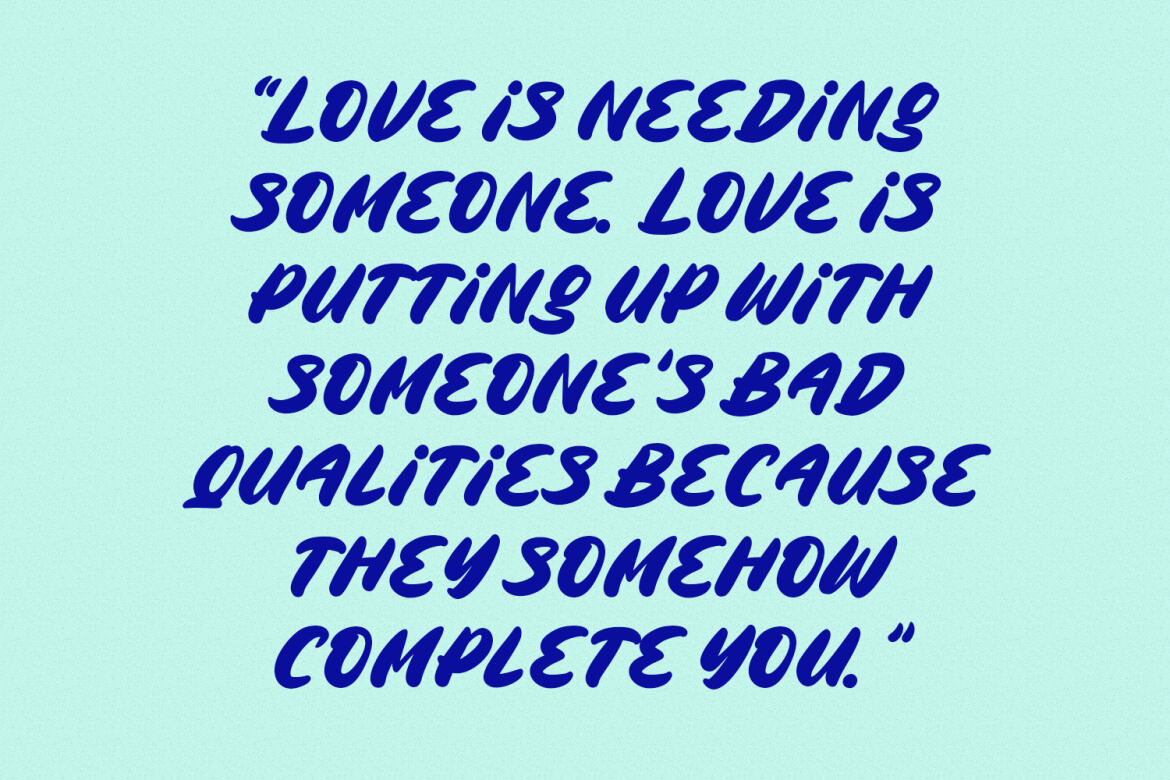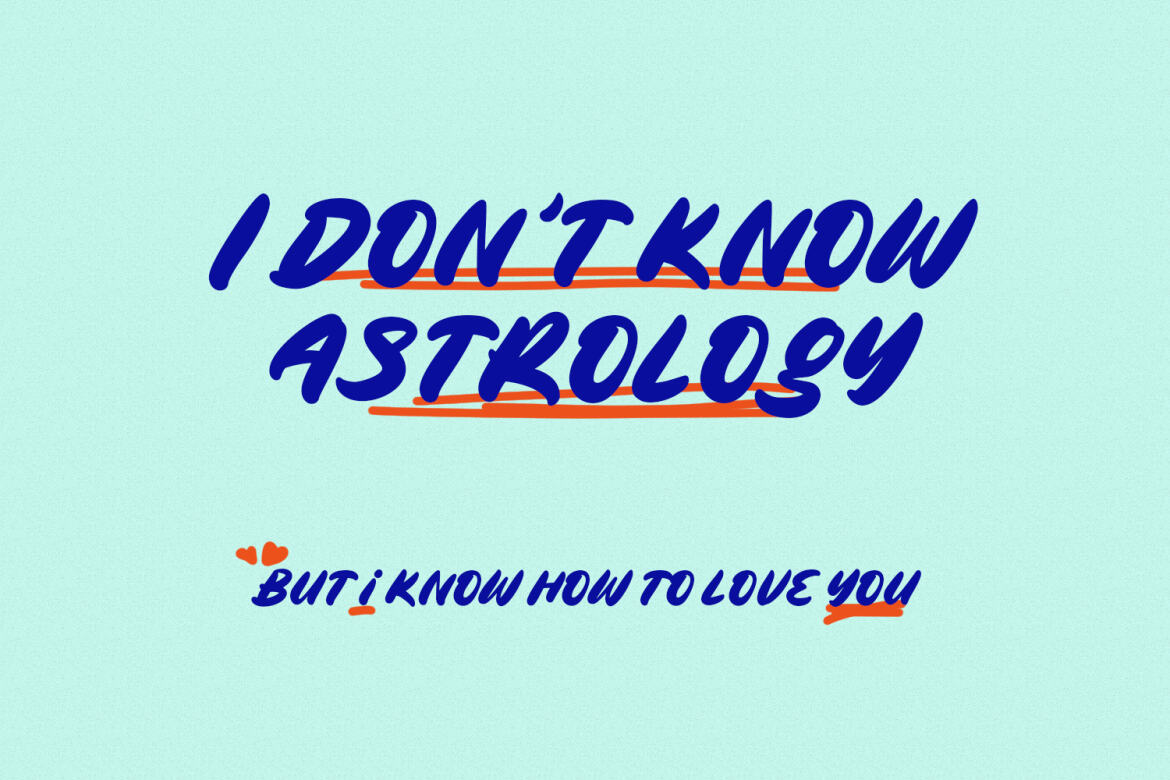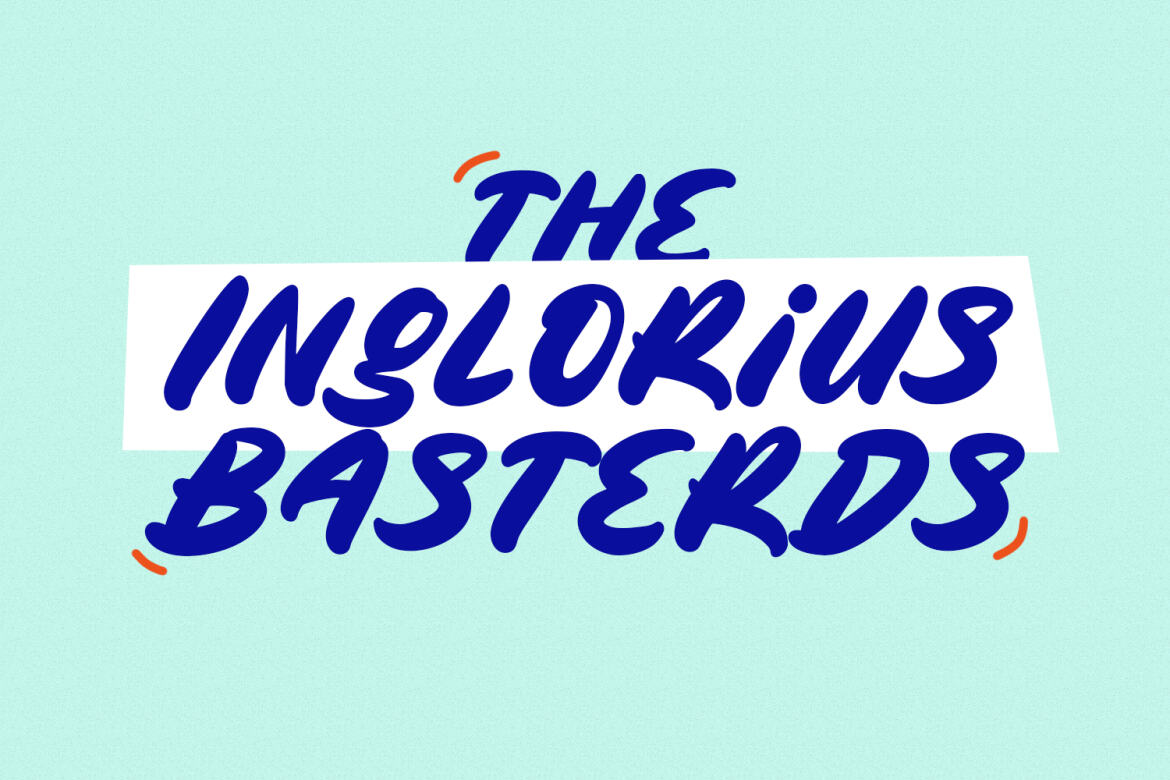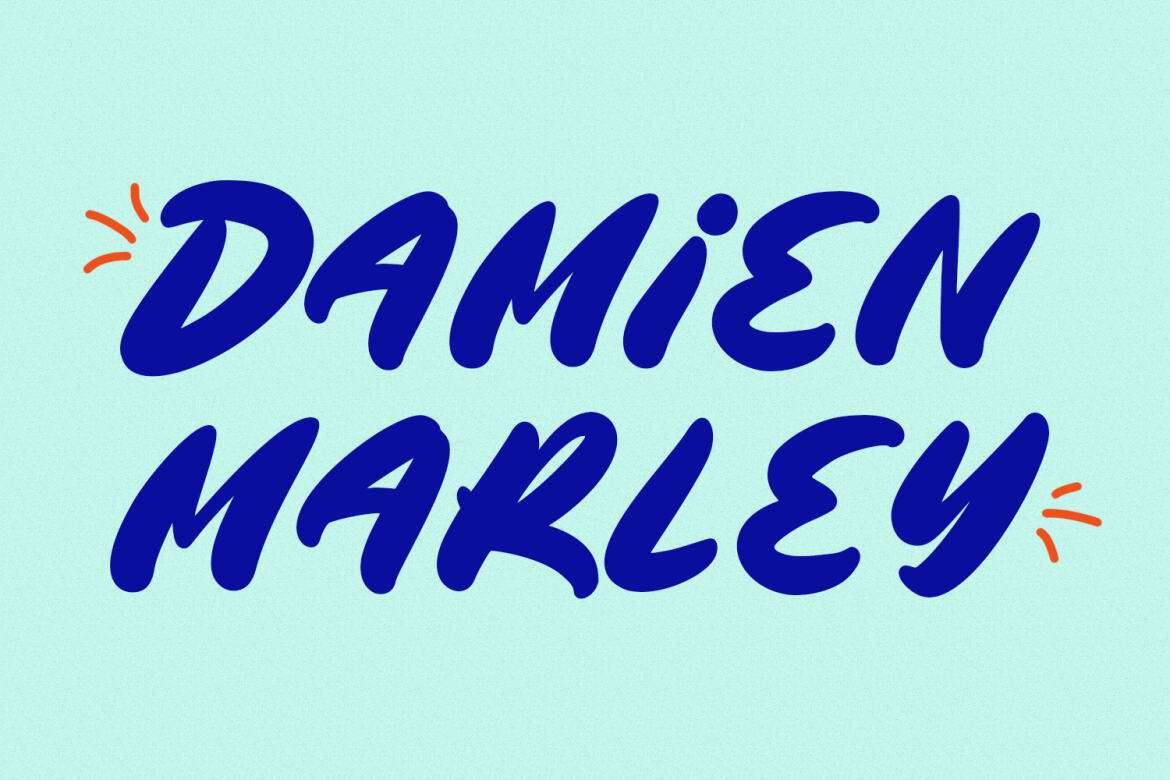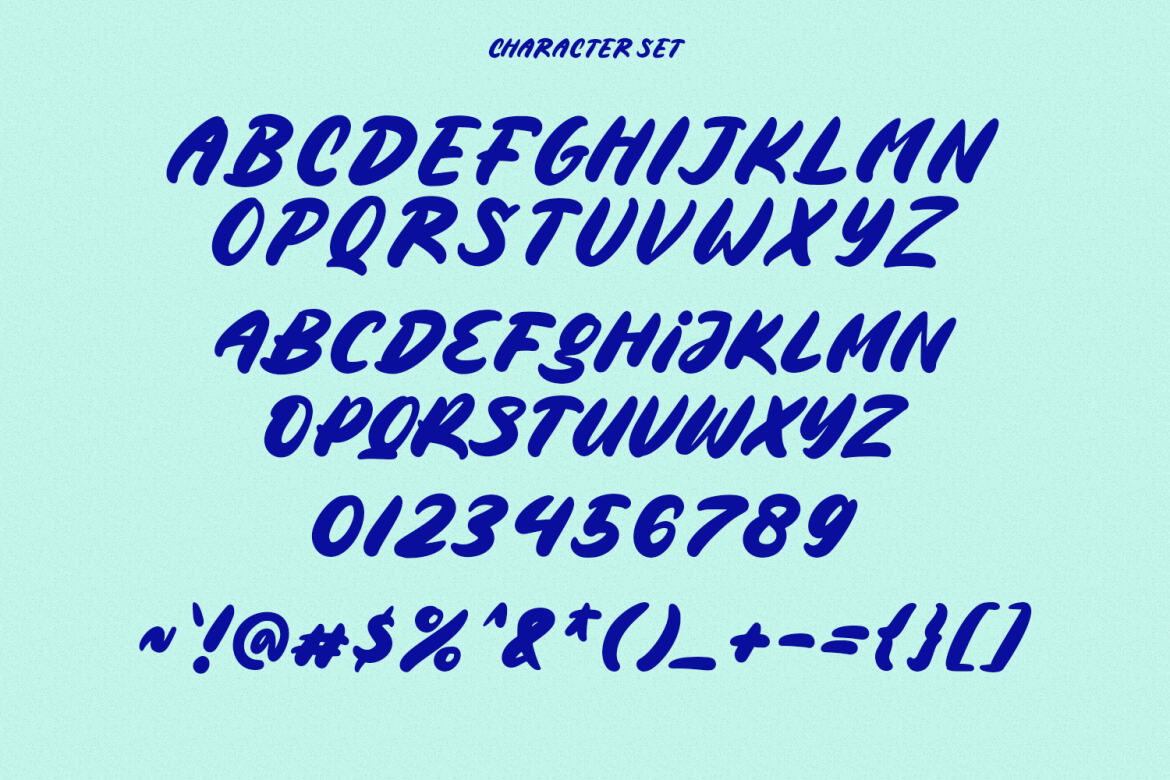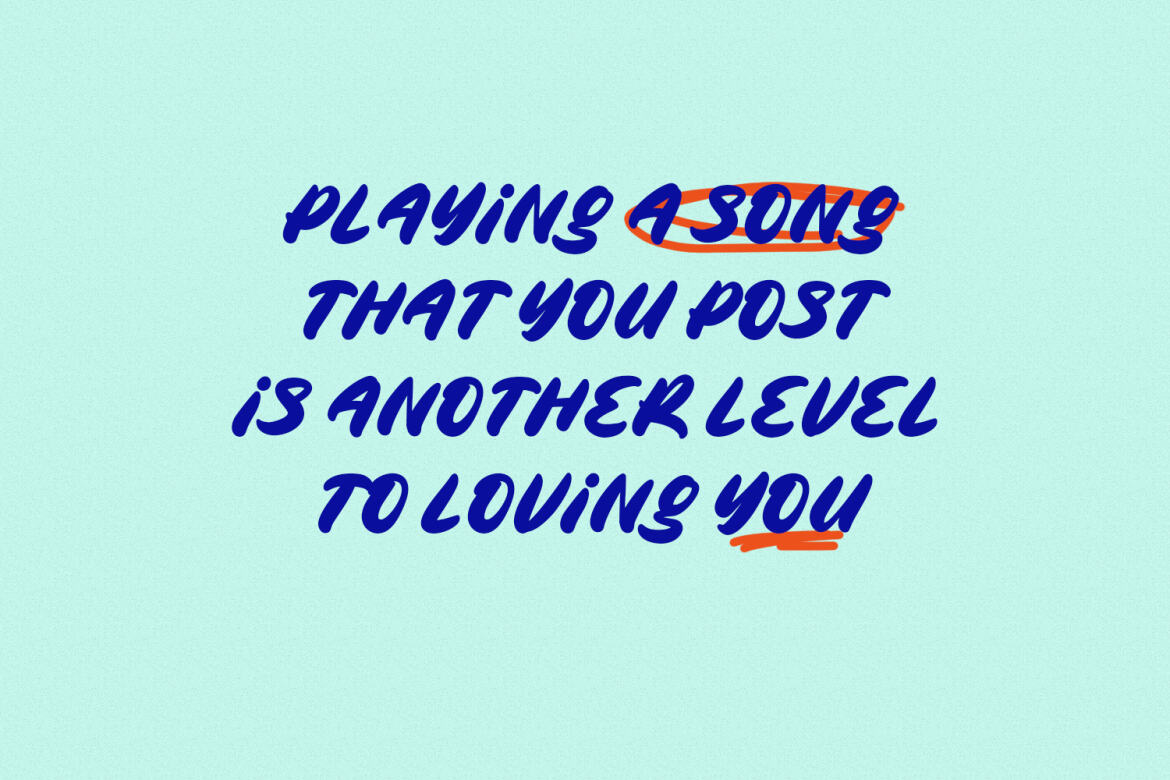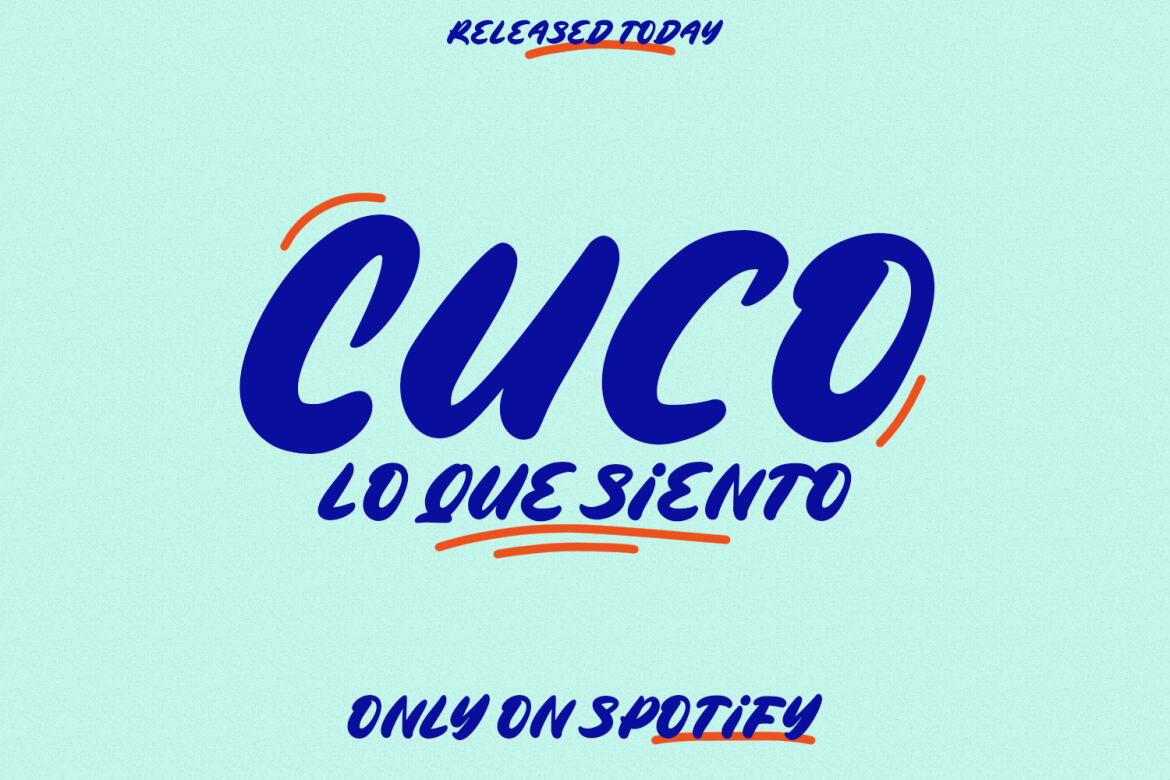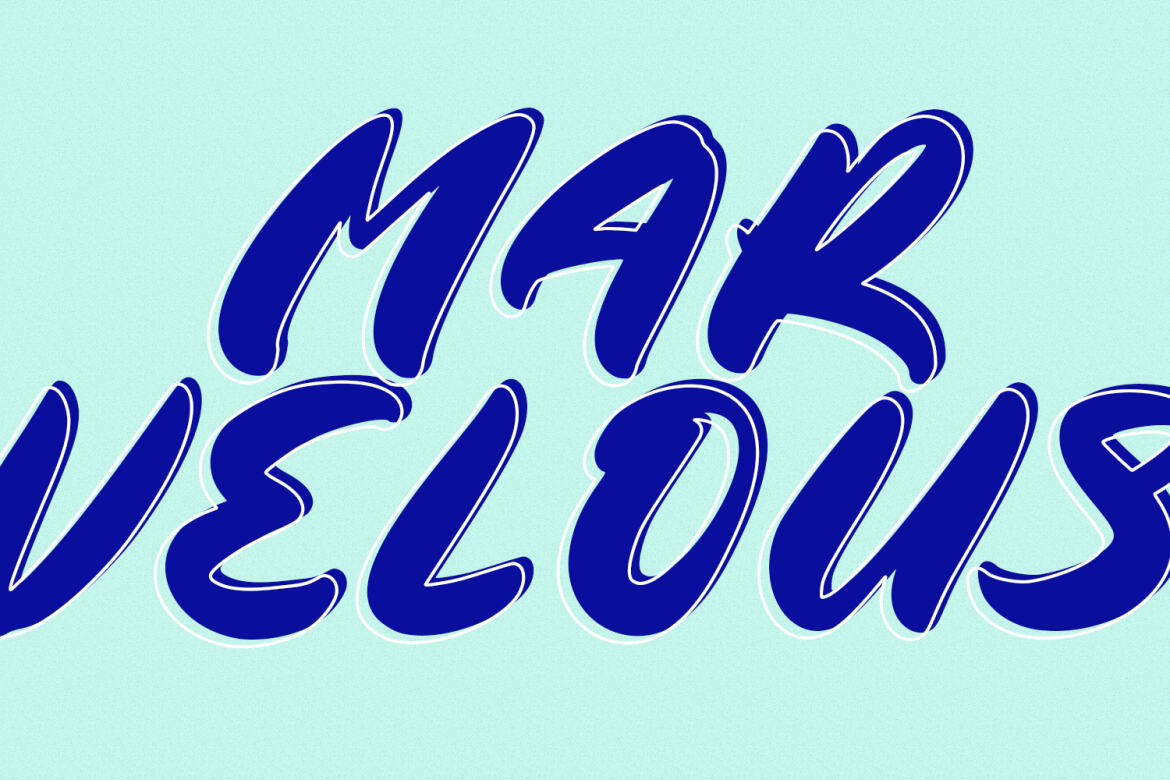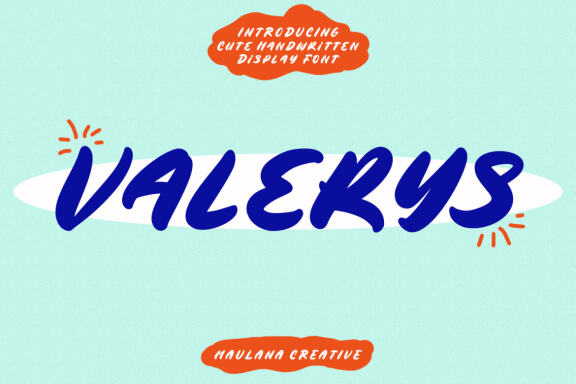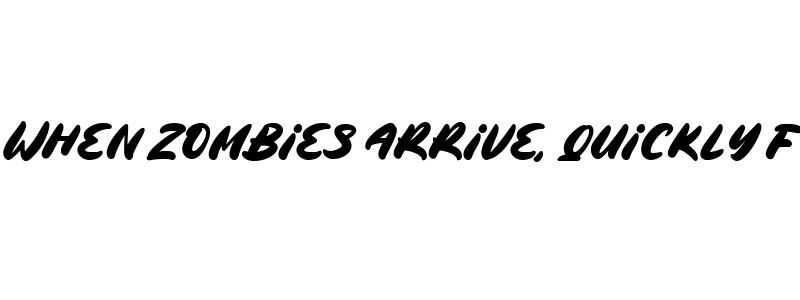
Valerys Handwritten FREE Font
Valerys
Valerys is a modern Casual handwritten font. With slanted bold stroke, fun character. To give you an extra creative work. Valerys font support multilingual more than 100+ language. This font is good for logo design, Social media, Movie Titles, Books Titles, a short text even a long text letter and good for your secondary text font with sans or serif. Make a stunning work with Valerys font.